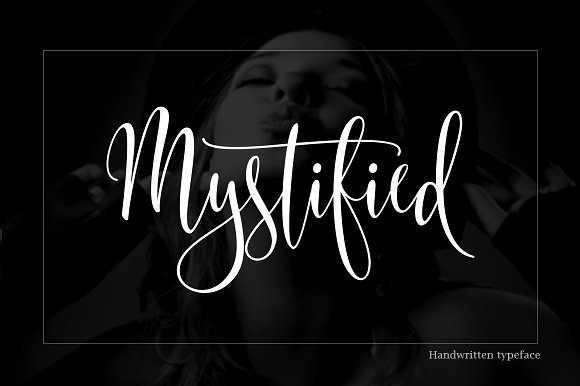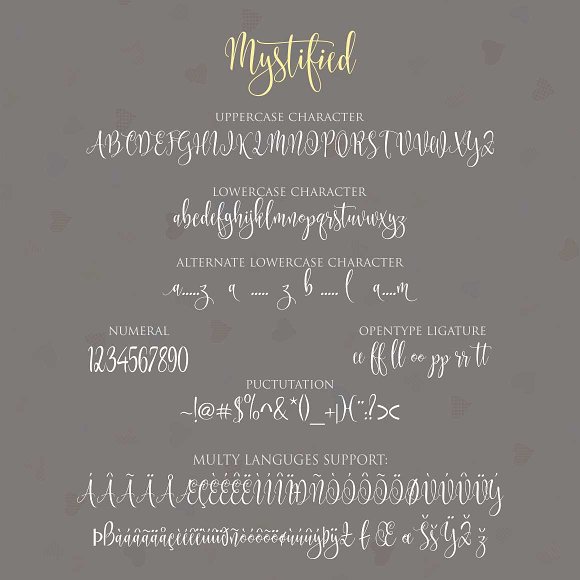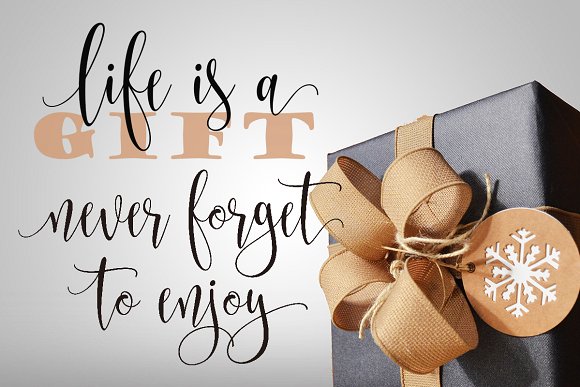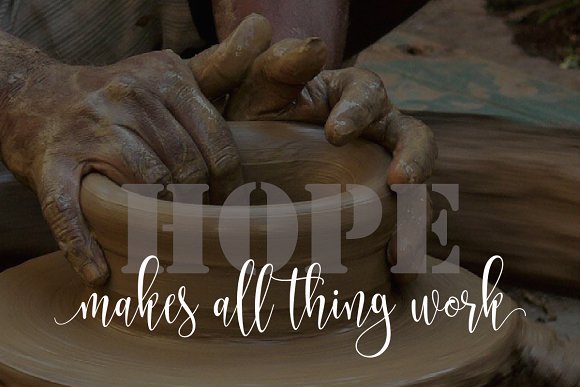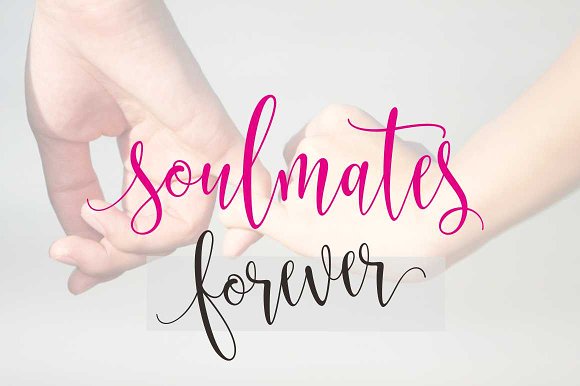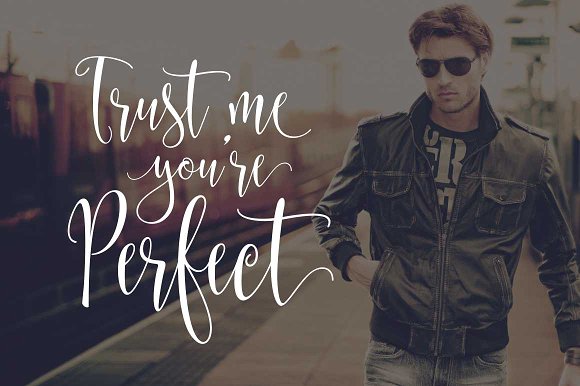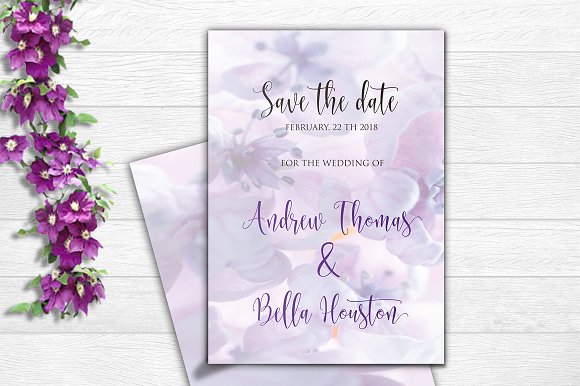
HomeScript FontsMystified Font Script Fonts Mystified Font FacebookXPinterestWhatsApp Mystified Font Poster 2 Mystified Font Poster 3 Mystified Font Poster 4 Mystified Font Poster 5 Mystified Font Poster 6 Mystified Font Poster 7 About Mystified Font Mystified is an interconnected font. It features stunning letters that weld together perfectly. DOWNLOAD ON CREATIVE FABRICAThis font is sold and delivered by Creative Fabrica. Font Canyon may earn a commission if you buy through this link. People also explored Proteqh Font Wincent Outline Extra Light Font Stoony Font Coarse Grind Bear Font Sweet Handwrite Font Bubble Christmas Font Wild Flowers Font With Love Font 369 0 TagsMystified Font Previous articleShinelight FontNext articleMisgaretha Font LEAVE A REPLY Cancel reply Comment: Please enter your comment! Name:* Please enter your name here Email:* You have entered an incorrect email address! Please enter your email address here Website: Save my name, email, and website in this browser for the next time I comment. Personal Use Free Sushi Day Personal Use Free Read more about this font Bajt Rounded Personal Use Free Read more about this font Tahu Font Personal Use Free Read more about this font Saolice Personal Use Free Read more about this font BLOG Best Fonts for T-Shirt Design – Top 2025 Picks In 2025, t-shirt design has become more than just fashion—it's a form of self-expression. Whether you're... Free vs Paid Fonts: Why Investing in Premium Fonts Is Worth It How to Install and Use Fonts on Windows, macOS, and Web Projects To increase your work productivity, choose the most readable fonts.